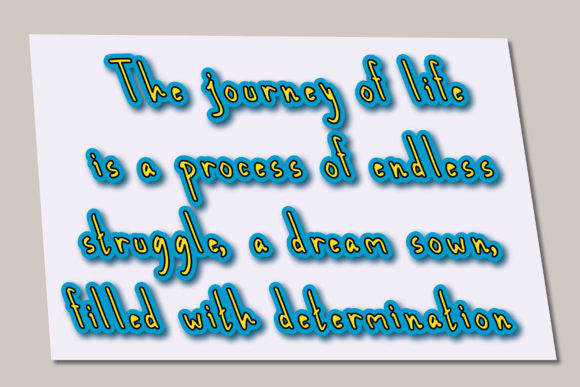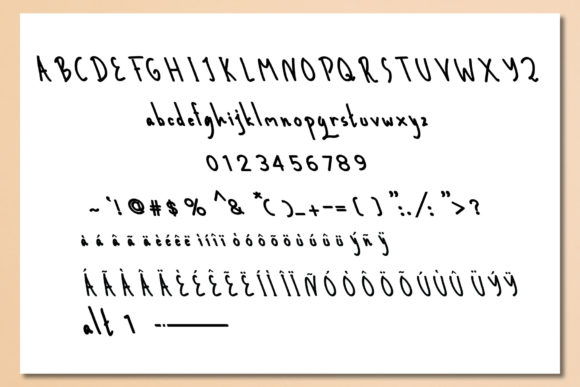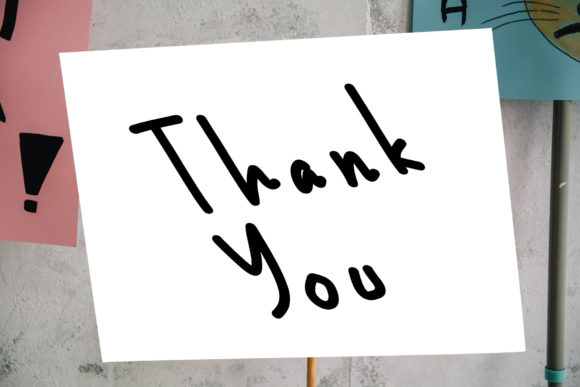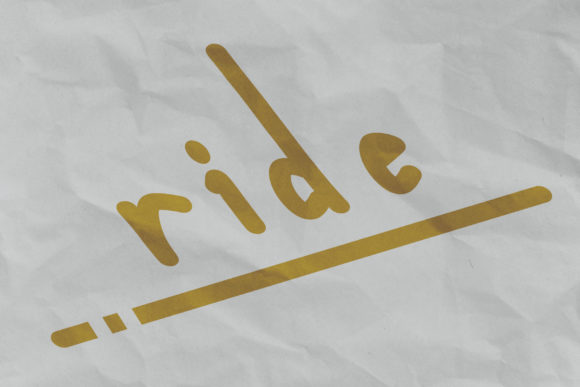
This Way Font
About This Way Font
This Way is a cute, italic handwritten font. Its natural and unique style makes it incredibly fitting to a large pool of designs. The only limit is your imagination!